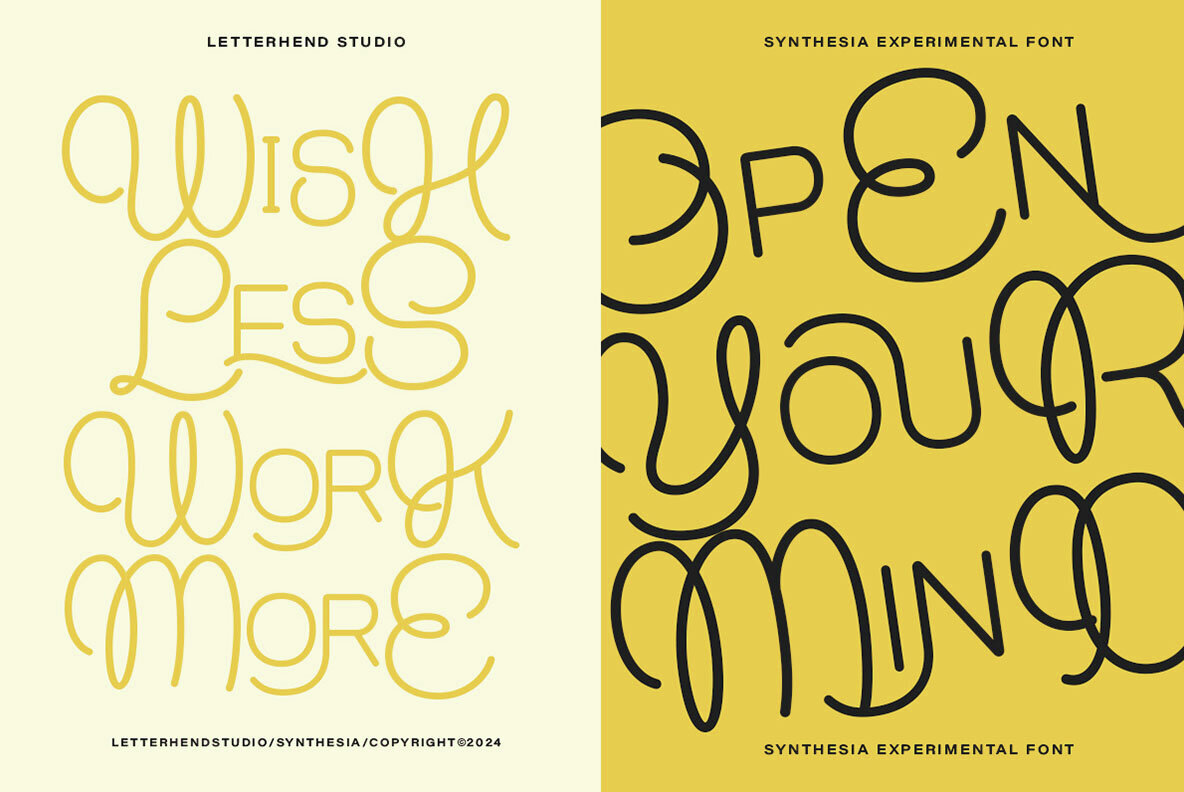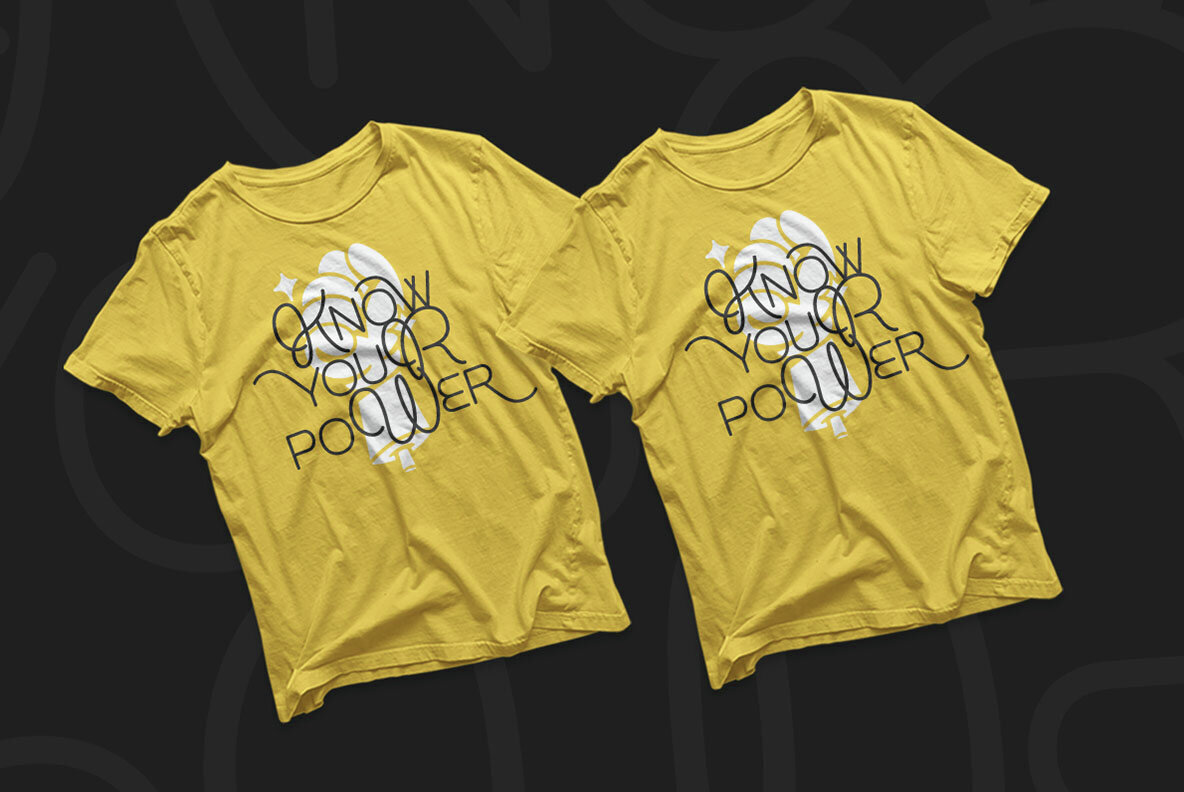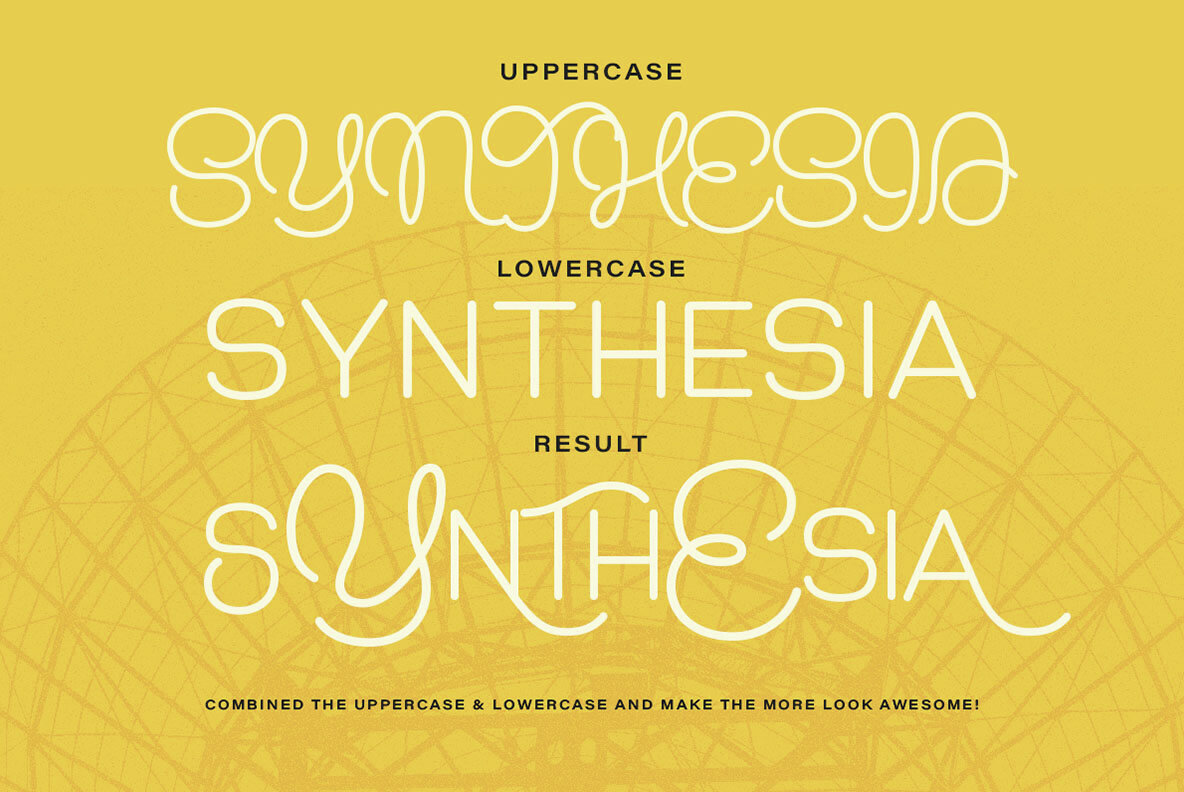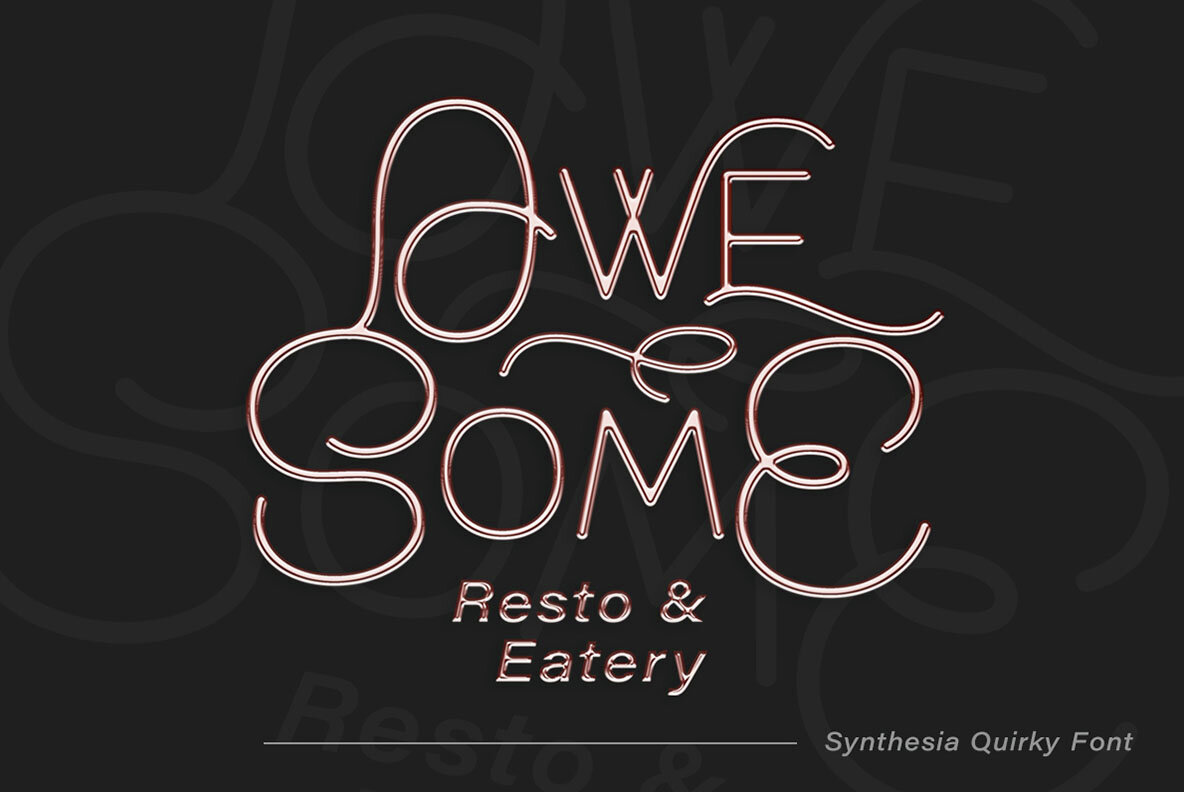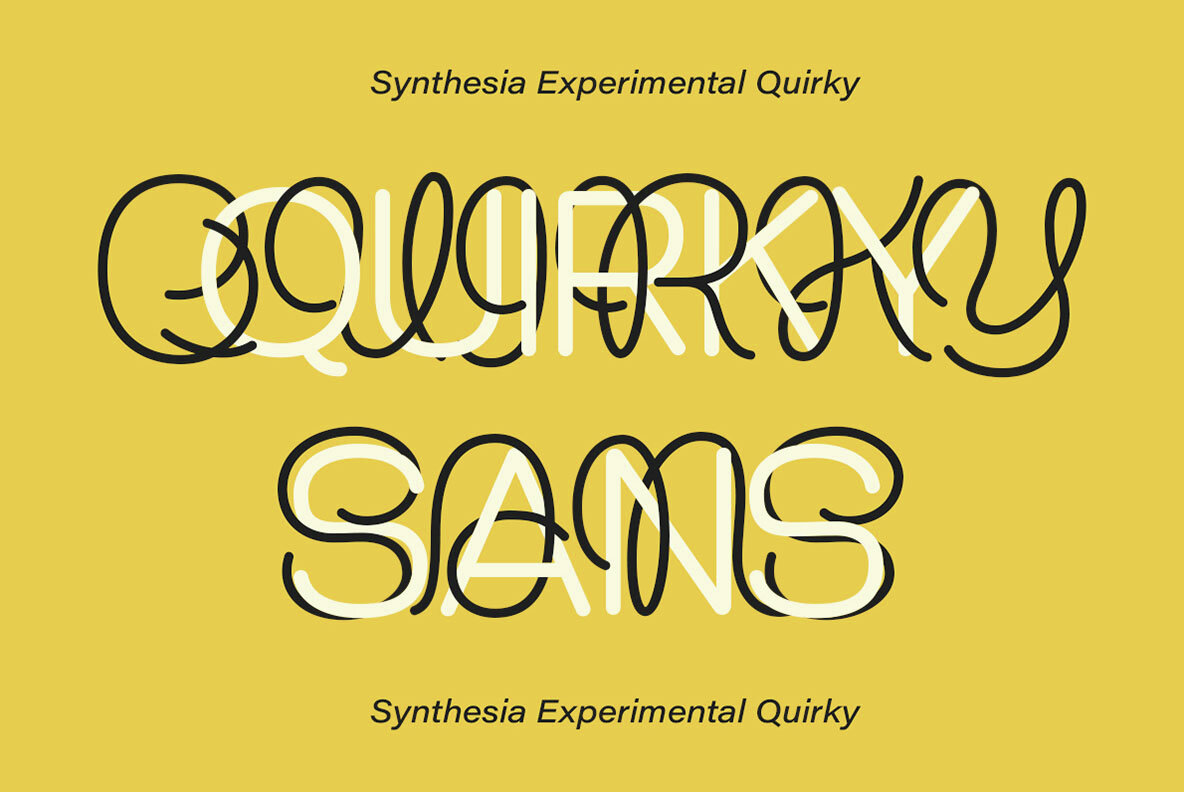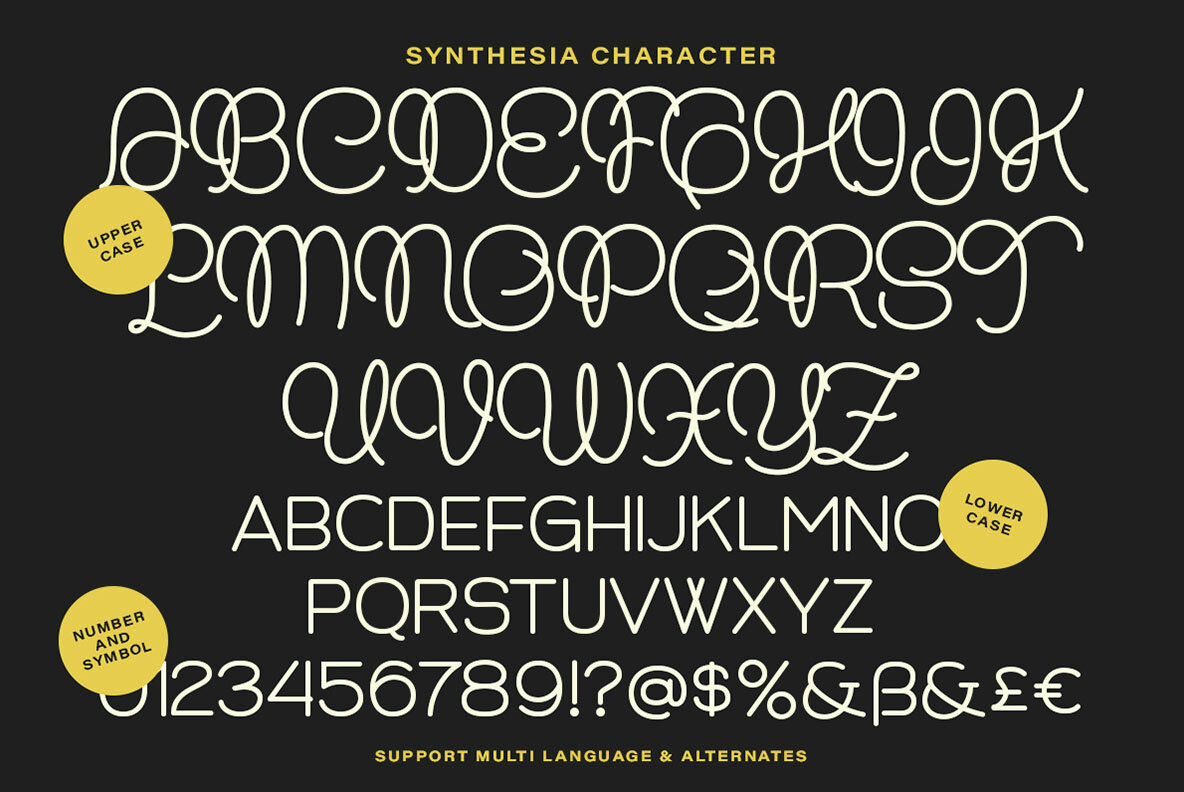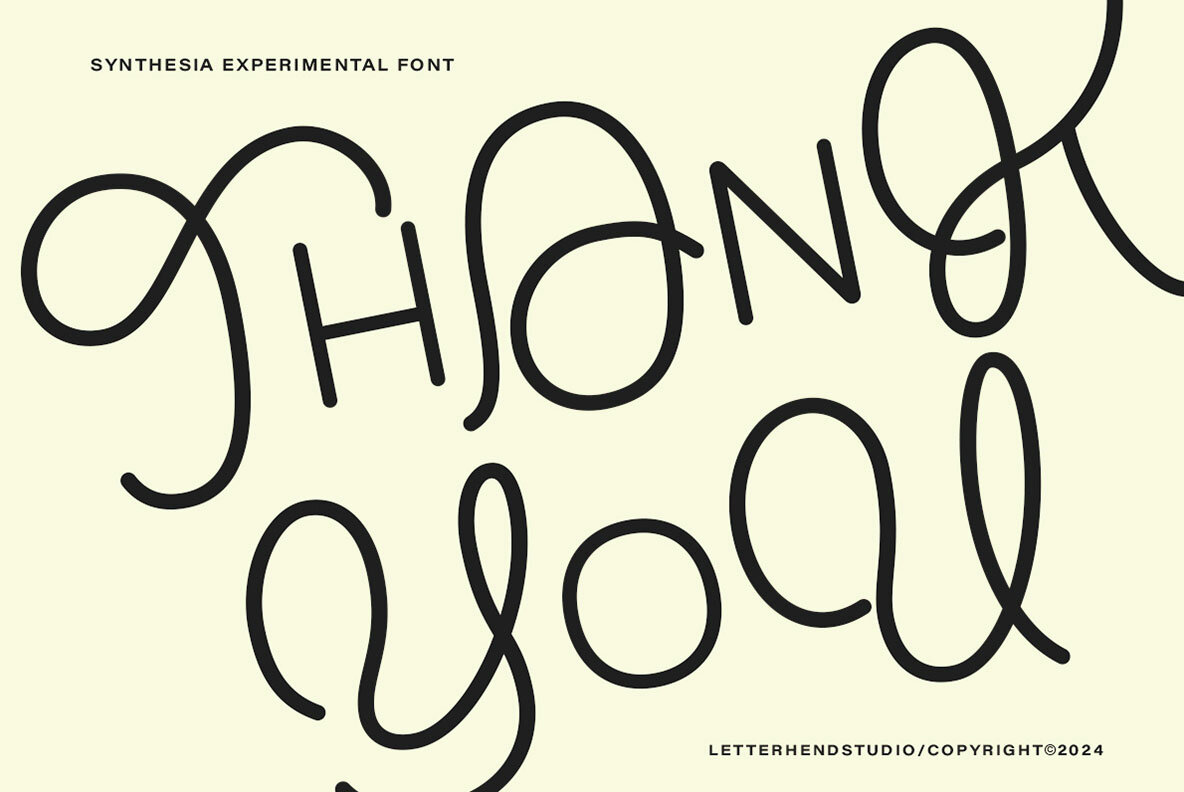
Synthesia Font
Synthesia Regular
Synthesia is a playful, experimental display font that infuses style, elegance, and artistic flair into any project. Ideal for logos, invitations, labels, magazines, books, and more, this font adds a sophisticated touch to sectors like fashion, makeup, stationery, and advertising.